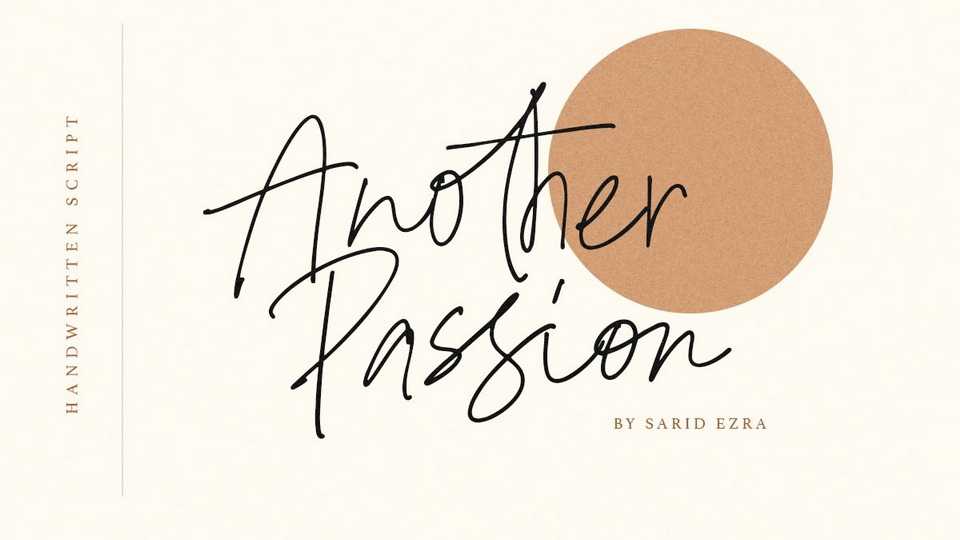
Download Another Passion font, a lovely and delicate script that exudes elegance and class. Another Passion will add a luxury spark to any design project that you wish to create.